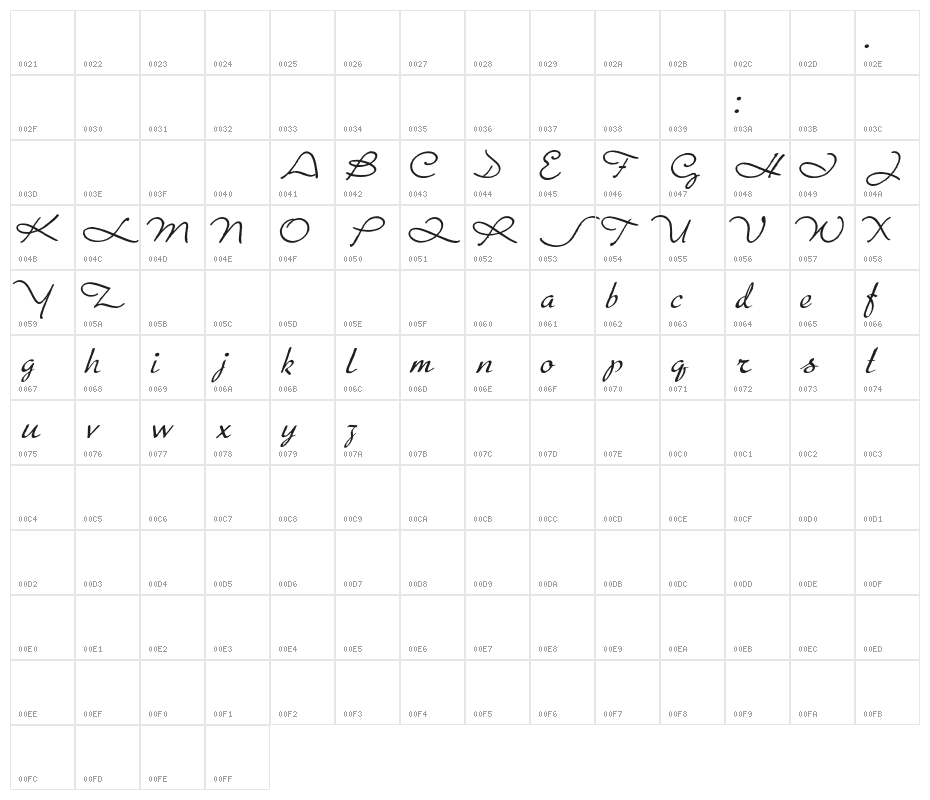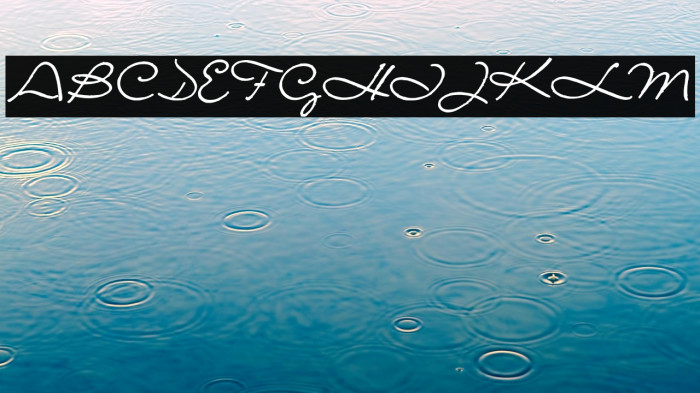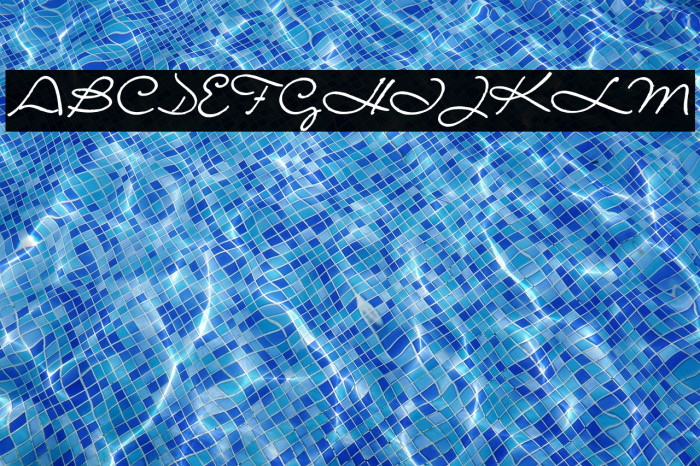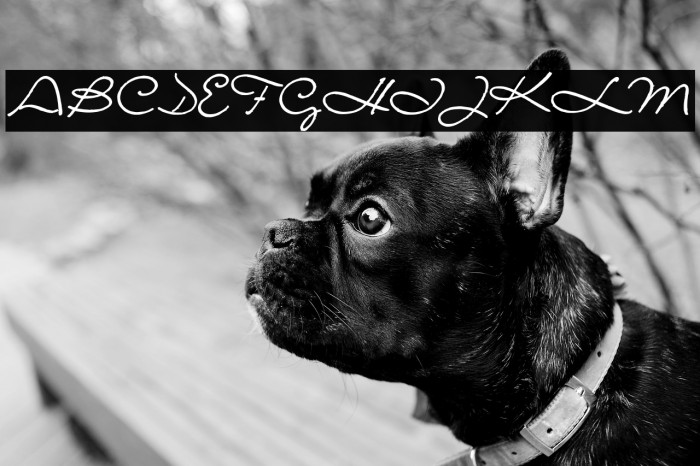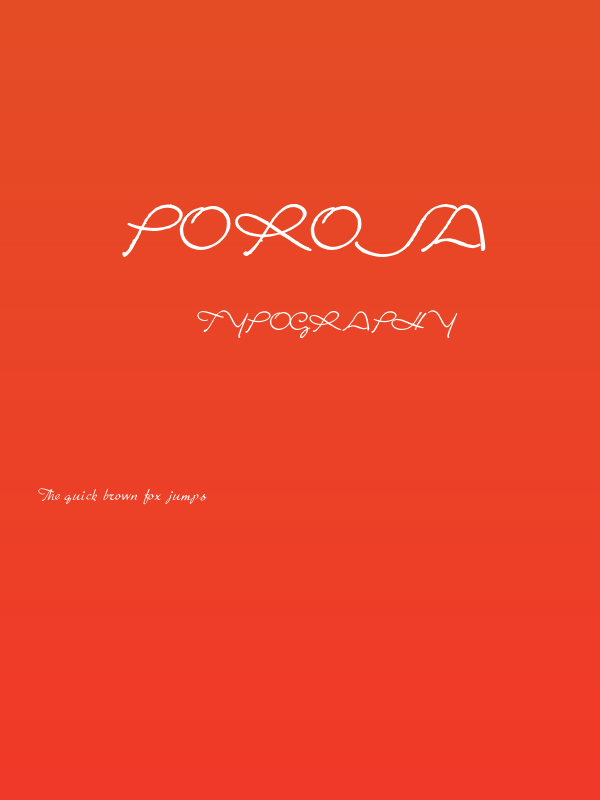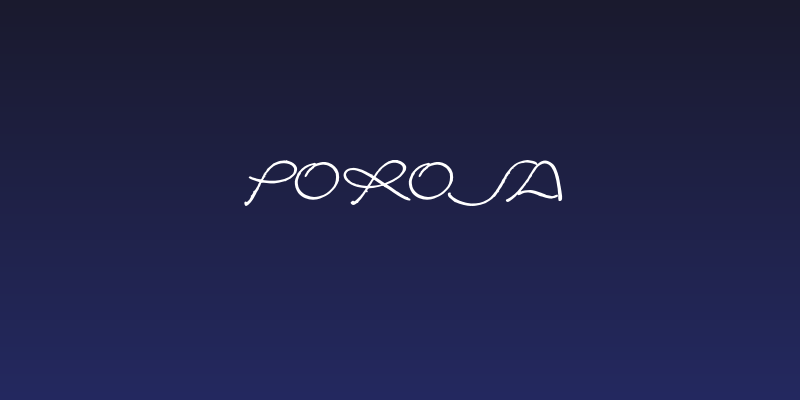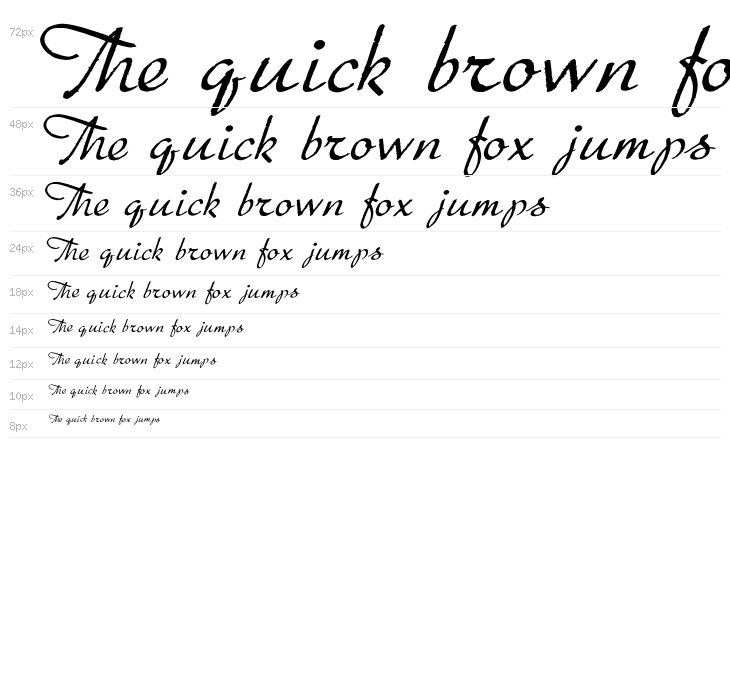
Porosa Font
Porosa Description
This font features a distinctive handwritten style with a fluid and elegant script. The uppercase letters are characterized by their flowing lines and interconnected strokes, giving them a sophisticated and artistic appearance. The lowercase letters maintain a similar fluidity, with some characters exhibiting unique flourishes that enhance the overall aesthetic. The numerals and special characters are crafted with the same attention to detail, ensuring consistency across the entire typeface. This font's design is both expressive and versatile, making it suitable for a variety of creative applications.
| Proposed Projects | Ideal for wedding invitations, greeting cards, branding projects, and artistic posters. |